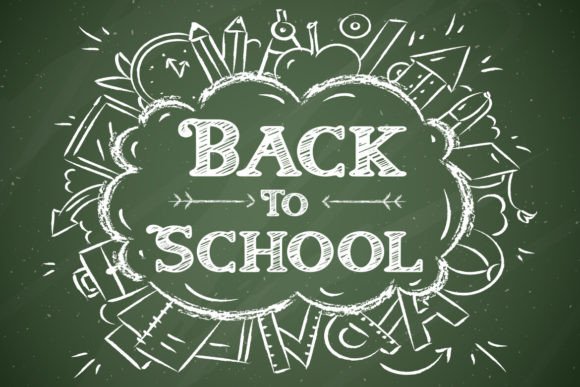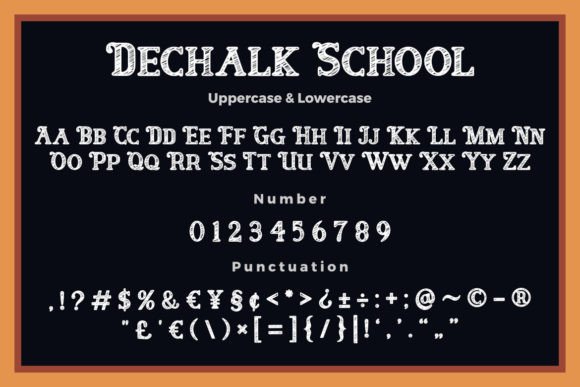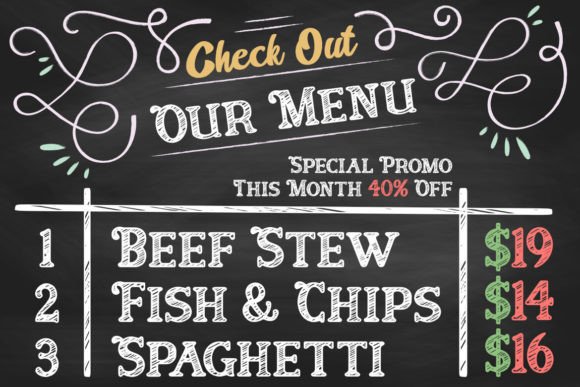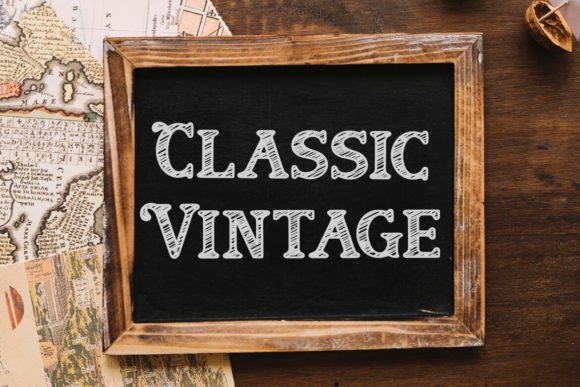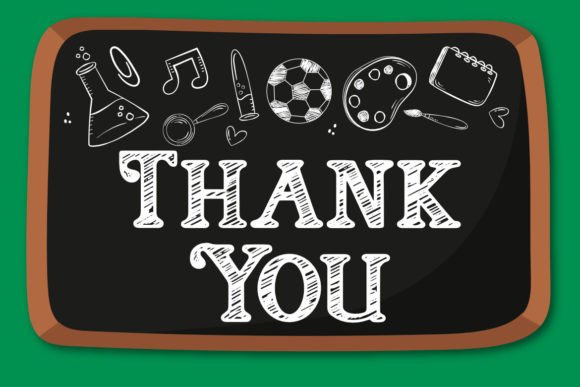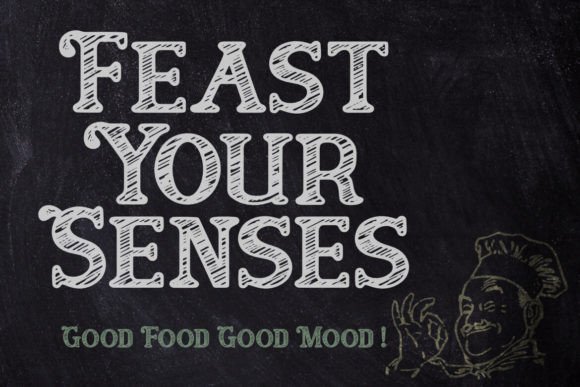
Introducing Dechalk School Font: The Ultimate Serif Font for Creative Projects
Are you tired of using the same old fonts for your creative projects? Look no further! Dechalk School Font is an incredibly unique and cool serif font that is sure to take your designs to the next level. Masterfully designed to become a true favorite, this font has the potential to bring each of your creative ideas to the highest level.
What Makes Dechalk School Font So Special?
Dechalk School Font is a one-of-a-kind serif font that boasts a distinctive and charming aesthetic. Its unique design elements make it perfect for a wide range of creative projects, from crafting and scrapbooking to graphic design and digital art. The font’s classic serif style gives it a timeless look that will never go out of style, while its subtle quirks and imperfections add a touch of personality and whimsy.
Key Features of Dechalk School Font
- Unique Serif Design: Dechalk School Font features a distinctive serif design that sets it apart from other fonts.
- Classic yet Quirky: The font’s classic serif style is balanced by subtle quirks and imperfections that add personality and whimsy.
- Highly Versatile: Dechalk School Font is perfect for a wide range of creative projects, from crafting and scrapbooking to graphic design and digital art.
- Easily Readable: Despite its unique design, Dechalk School Font is highly readable, making it perfect for body text and headlines.
How to Use Dechalk School Font in Your Creative Projects
Dechalk School Font is incredibly versatile and can be used in a wide range of creative projects. Here are a few ideas to get you started:
- Crafting and Scrapbooking: Use Dechalk School Font to add a personal touch to your scrapbook pages, journal entries, and craft projects.
- Graphic Design: Dechalk School Font is perfect for graphic design projects, such as brochures, flyers, and posters.
- Digital Art: Add a touch of elegance and sophistication to your digital art with Dechalk School Font.
- Branding and Packaging: Use Dechalk School Font to create unique and eye-catching branding and packaging designs.
Tips and Tricks for Getting the Most Out of Dechalk School Font
Here are a few tips and tricks for getting the most out of Dechalk School Font:
- Experiment with Different Sizes: Dechalk School Font looks great in a variety of sizes, from small body text to large headlines.
- Pair it with Other Fonts: Dechalk School Font pairs well with a wide range of other fonts, so don’t be afraid to experiment with different combinations.
- Use it for Headlines and Titles: Dechalk School Font is perfect for headlines and titles, where its unique design elements can really shine.